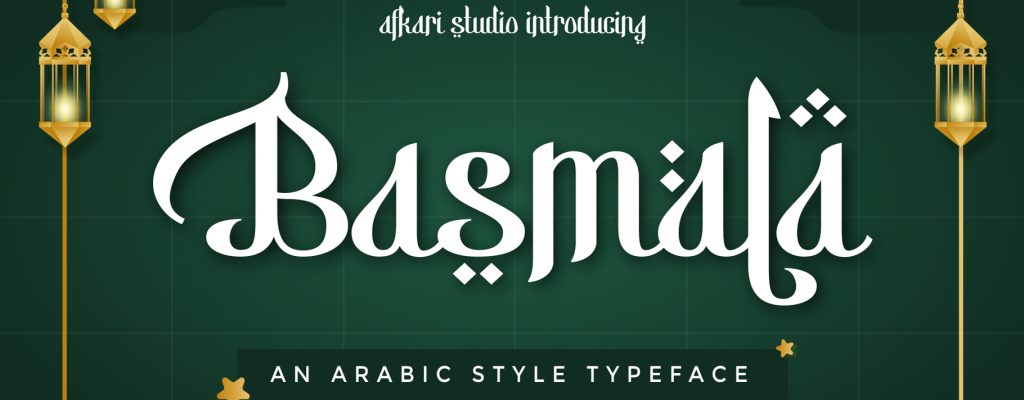
Basmala – An Arabic Style Typeface
NEW Ramadhan and Islamic font, Basmala, is an Arabic-styled display typeface. This Islamic Ramadhan Arabic font is perfect for any graphic design related to the Islamic style.